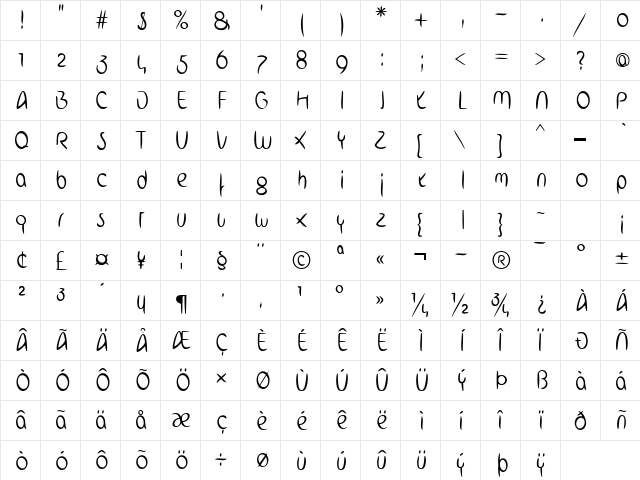
ArabStroke LT Light Regular
| Designer | Carichini |
Design Context for ArabStroke LT Light Typeface
ArabStroke LT Light takes a measured approach to typography — its balanced proportions and neutral character make it a reliable workhorse for both digital and print work. Its slender proportions lend an understated elegance to any composition.